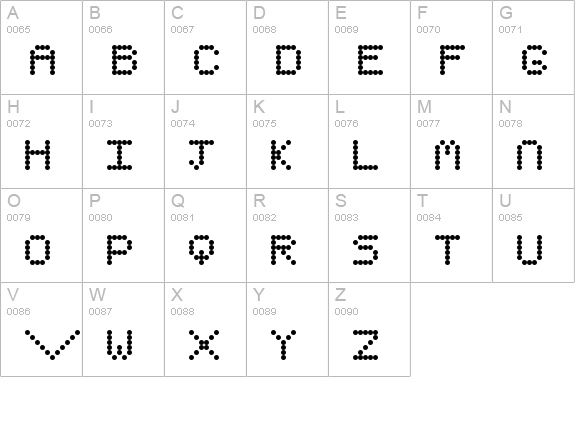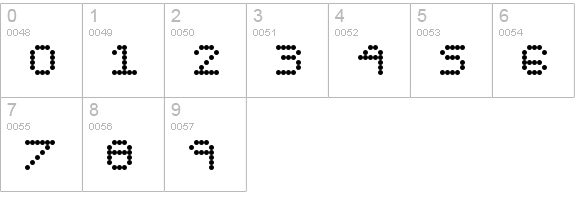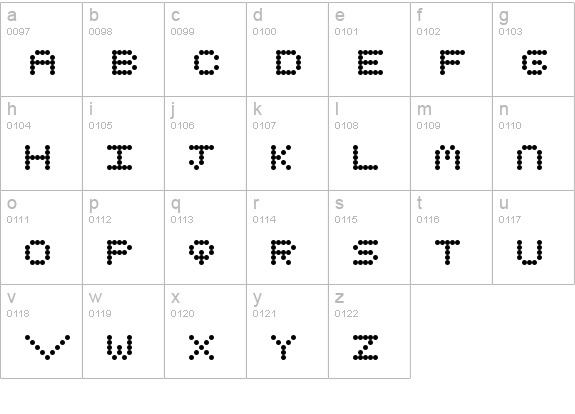
Pixel II Regular is the standard, neutral variant in the Pixel typeface family \xE2\x80\x94 well suited to general body text, paragraphs, and standard typographic work.
Pixel II Regular is a modern and stylish font that is perfect for anyone looking to add a touch of contemporary flair to their designs. With its clean lines and bold, rounded edges, this typeface is sure to make a statement. Whether you're designing a website, creating a logo, or working on a poster, Pixel II Regular is the perfect choice to bring your vision to life. What sets Pixel II Regular apart from other fonts is its versatility. It can be used in a variety of contexts, from playful and fun designs to sleek and professional layouts. Its clean and minimalistic style makes it easy to read, while its unique character adds a touch of personality. One of the best parts about Pixel II Regular is that it is free! That's right, you can download this font for absolutely no cost at FontsMarket.com. This means that you can access all of its amazing features without breaking the bank. So why wait? Get your hands on Pixel II Regular today and start creating stunning designs that are sure to impress. In addition to being free, Pixel II Regular also offers a wide range of weights and styles, making it even more versatile. Whether you prefer a lighter, more delicate look or a bolder, more impactful one, this font has got you covered. With its extensive range of options, you'll never run out of ways to use Pixel II Regular in your projects. So, if you're looking for a font that is modern, stylish, and free, look no further than Pixel II Regular. Download it today from FontsMarket.com and let your creativity soar. With its clean lines, unique character, and wide range of weights and styles, this font is sure to become a staple in your design toolkit. Don't miss out on this amazing opportunity to elevate your designs with Pixel II Regular.